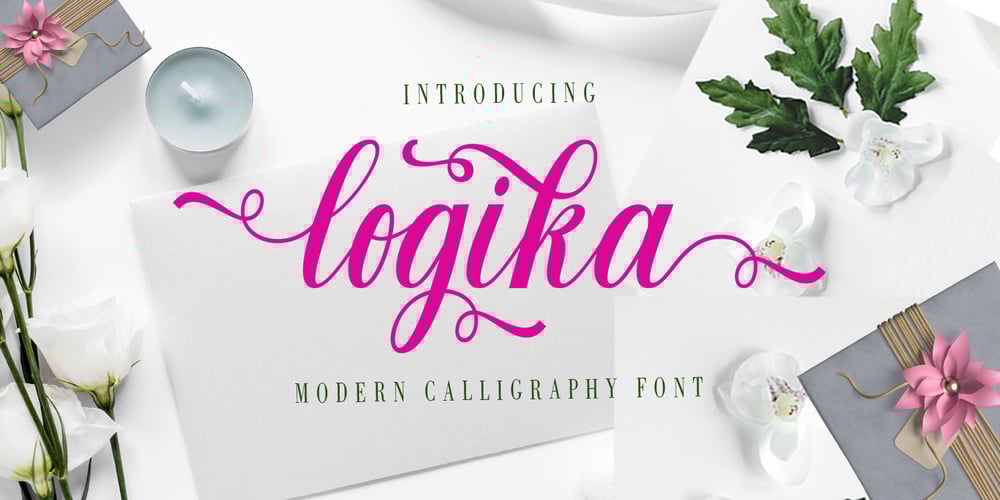
Logika
Logika font
Logika Font Family was designed by khaidir and published by Gatype. Logika contains 1 styles and family package options. Logika is handwritten stylish script that combines a dancing baseline with a classic and elegant touch. It can be used for various purposes such as headings, signatures, logos, wedding invitations, t-shirts, letterheads, signage, labels, news, posters, badges and more.To activate OpenType Stylistic alternative, you need a program that supports OpenType features such as Adobe Illustrator CS, Adobe Indesign and CorelDraw X6-X7, Microsoft Word 2010 or later.How to access all of the alternate characters, using the Windows Character Map to Photoshop:https://www.youtube.com/watch?v=Go9vacoYmBwHow to access all of the alternate character using Adobe Illustrator:http://youtu.be/iptSFA7feQ0nnLogika is PUA encoded with Unicode, which allows full access to all the extra characters without having special design software. Mac users can use Font Book, and Windows users can use the Character Map to view and copy one additional character to paste into your favorite text applications.Thank you very much for looking and please tell me if you have questions.